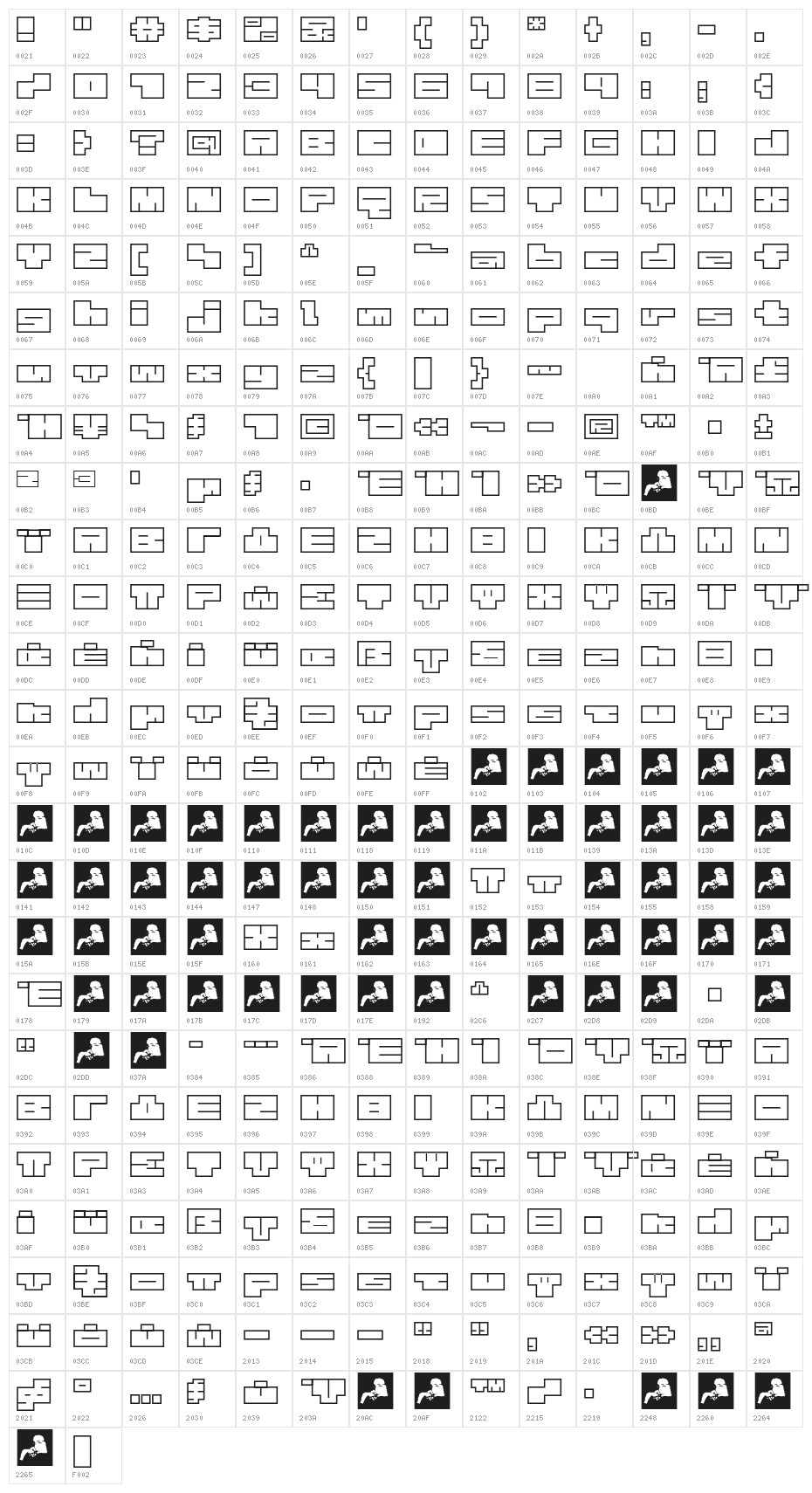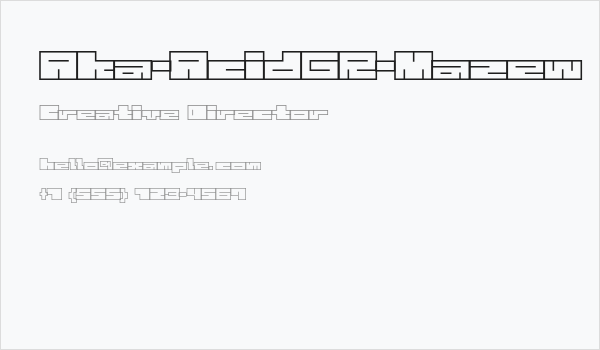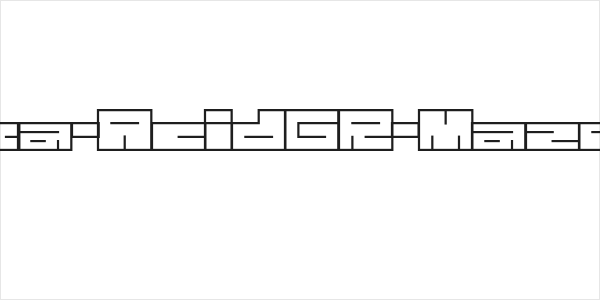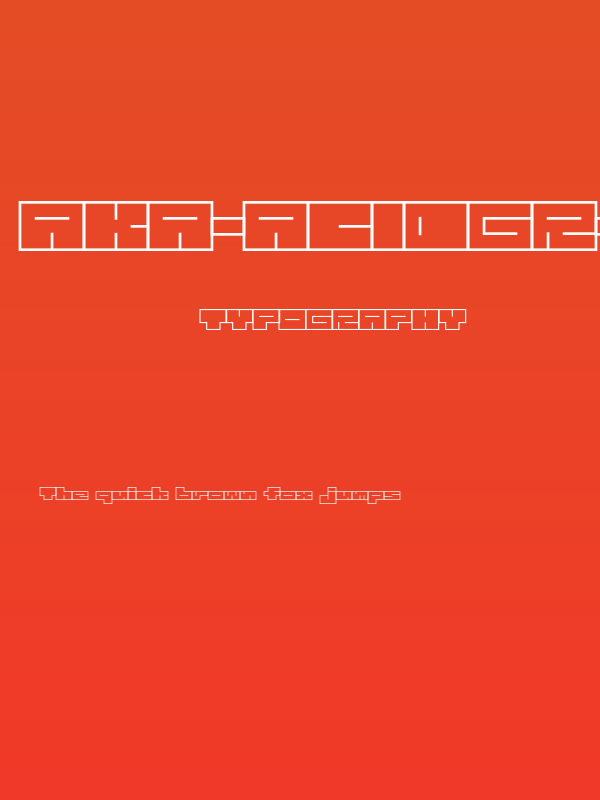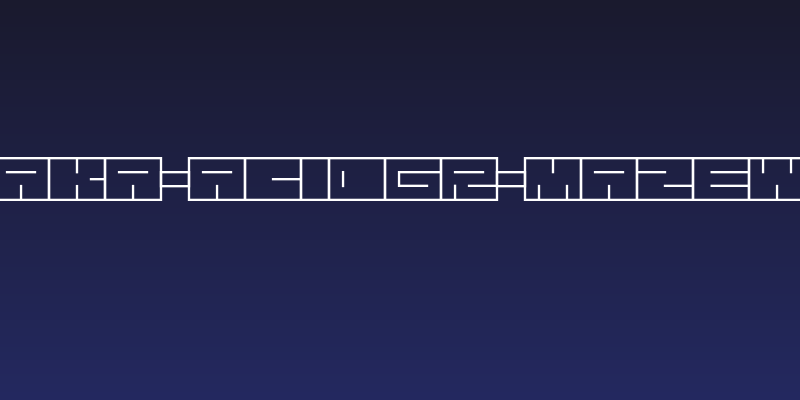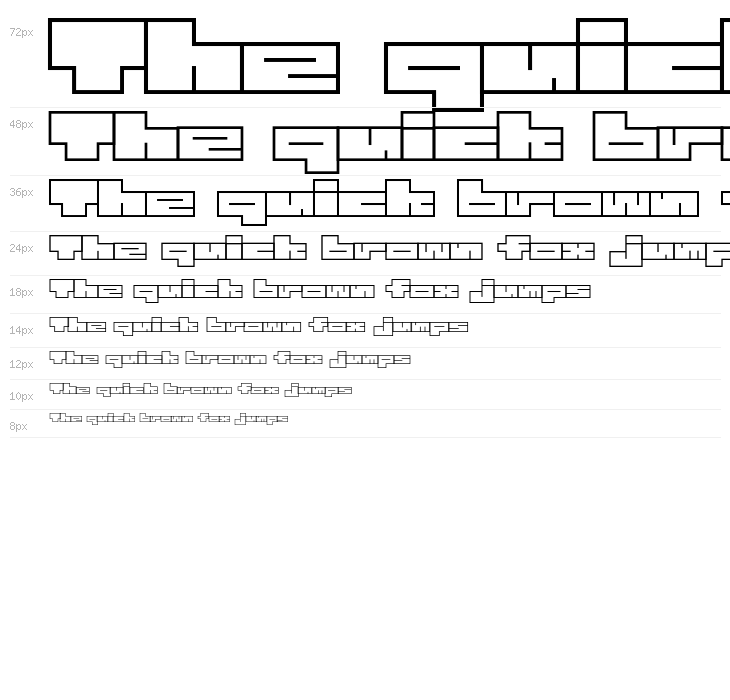
Aka-AcidGR-Mazew Font
Aka-AcidGR-Mazew Description
This font features a unique, maze-like design with a geometric and blocky structure. Each character is composed of straight lines and right angles, creating a pixelated appearance that resembles a digital or retro video game aesthetic. The uppercase and lowercase letters maintain a consistent height, while the numbers and special characters follow the same stylistic approach. The font's design is highly decorative, making it stand out with its bold and striking presence. It is ideal for projects that require a futuristic or tech-inspired look.
| Proposed Projects | Perfect for video game graphics, tech-themed posters, and digital art projects. |